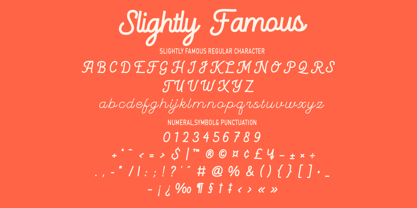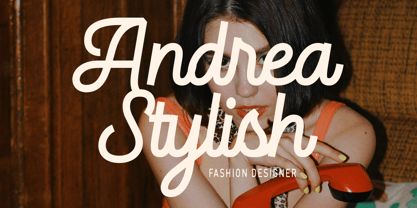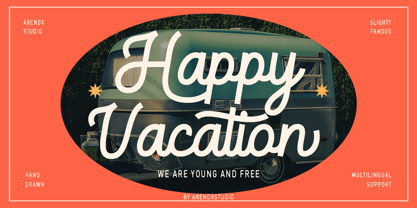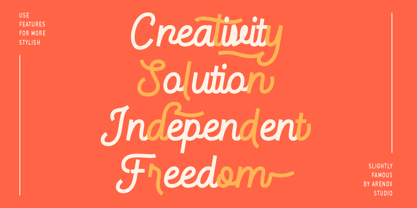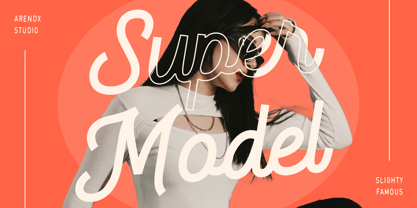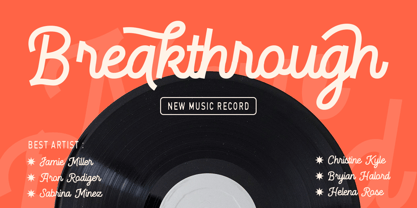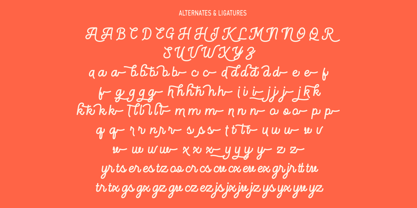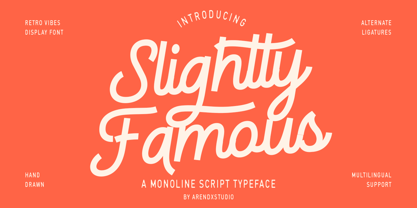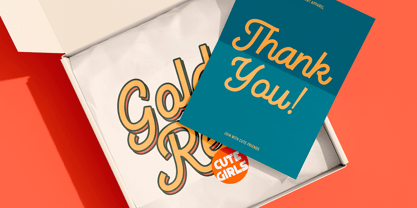
Slightly Famous
by Arendxstudio
The Slightly Famous Font Family was designed by Asep Rendi and published by Arendxstudio. Slightly Famous contains 1 styles. More about this family
Slightly Famous is a bold and playful monoline script font created by Arendxstudio, infused with strong retro vibes and modern curves. With its smooth flow and expressive ligatures, this typeface is perfect for headlines, logos, posters, and nostalgic branding projects. The dynamic strokes and alternate characters add personality and uniqueness to your typography.
Designed as a retro-inspired display font, Slightly Famous offers alternate ligatures and stylish letterforms, making it a versatile choice for both digital and print media. Whether you’re aiming for a fun vintage feel or a standout modern look, this typeface will bring charm and energy to your design.
Features : Uppercase and lowercase characters
Numerals and Punctuation (OpenType Standard)
Accents (Supports Multilingual Characters)